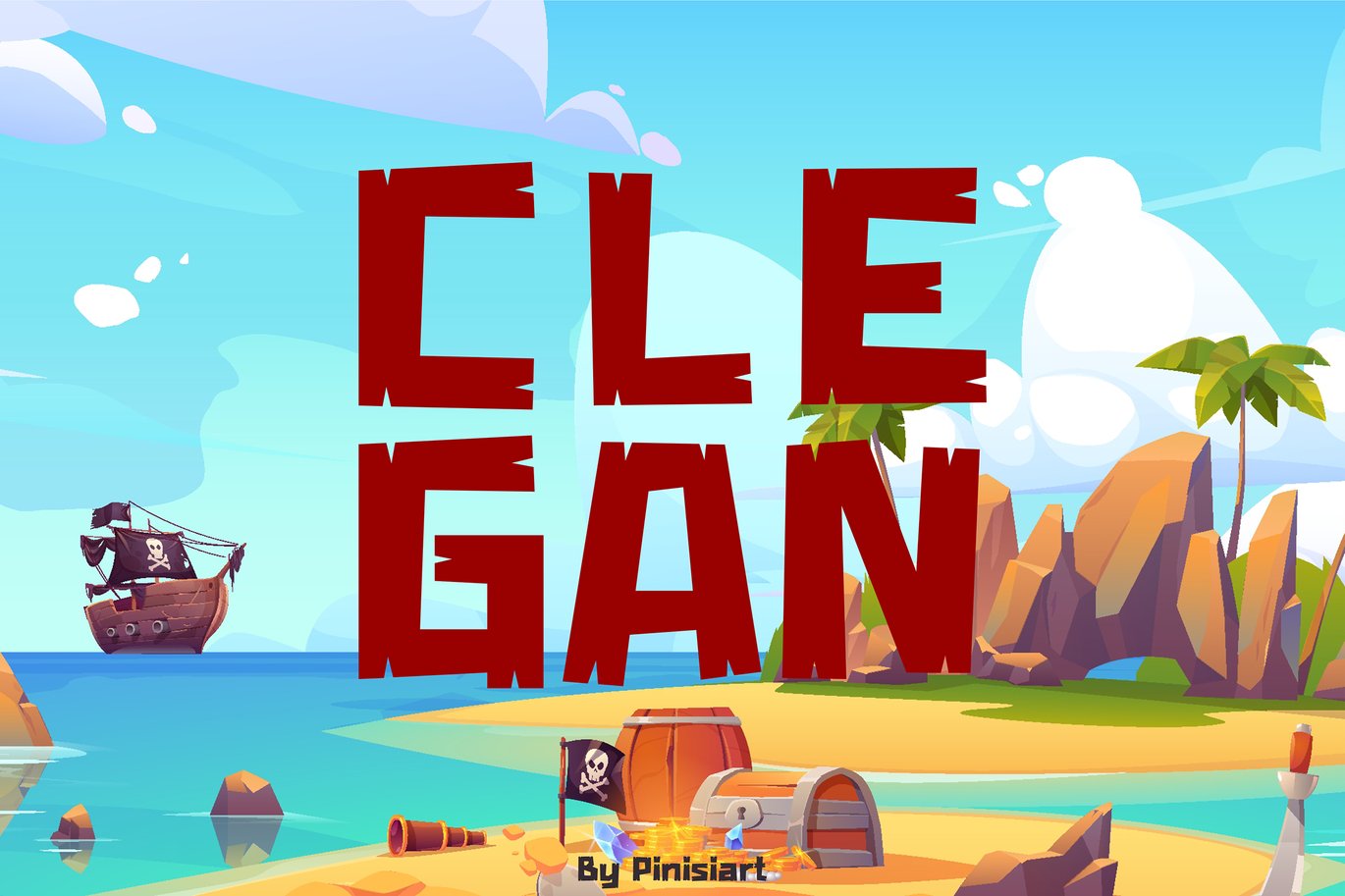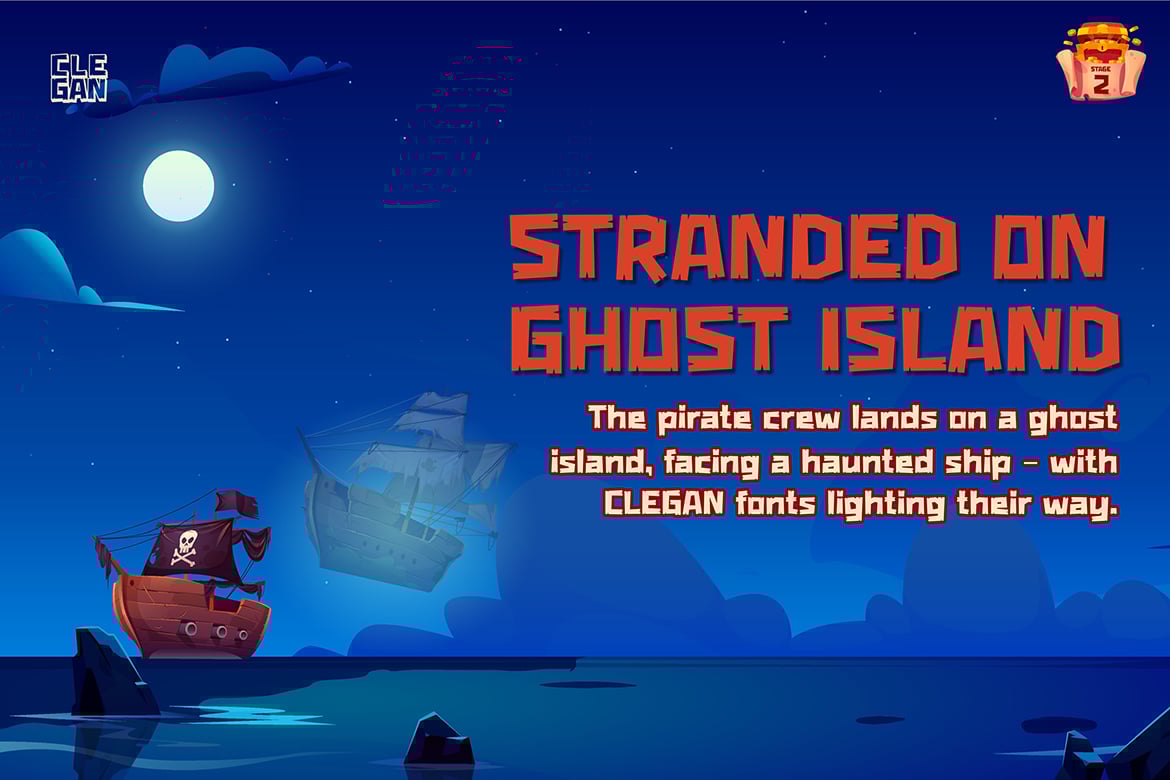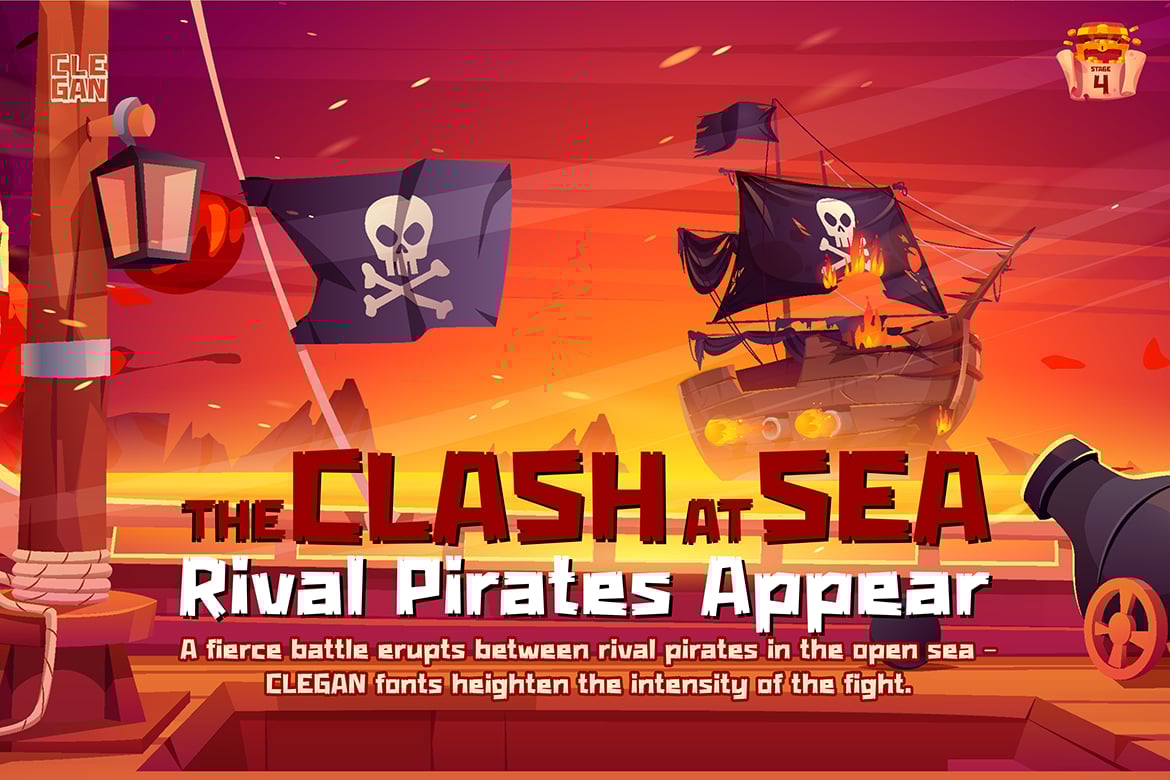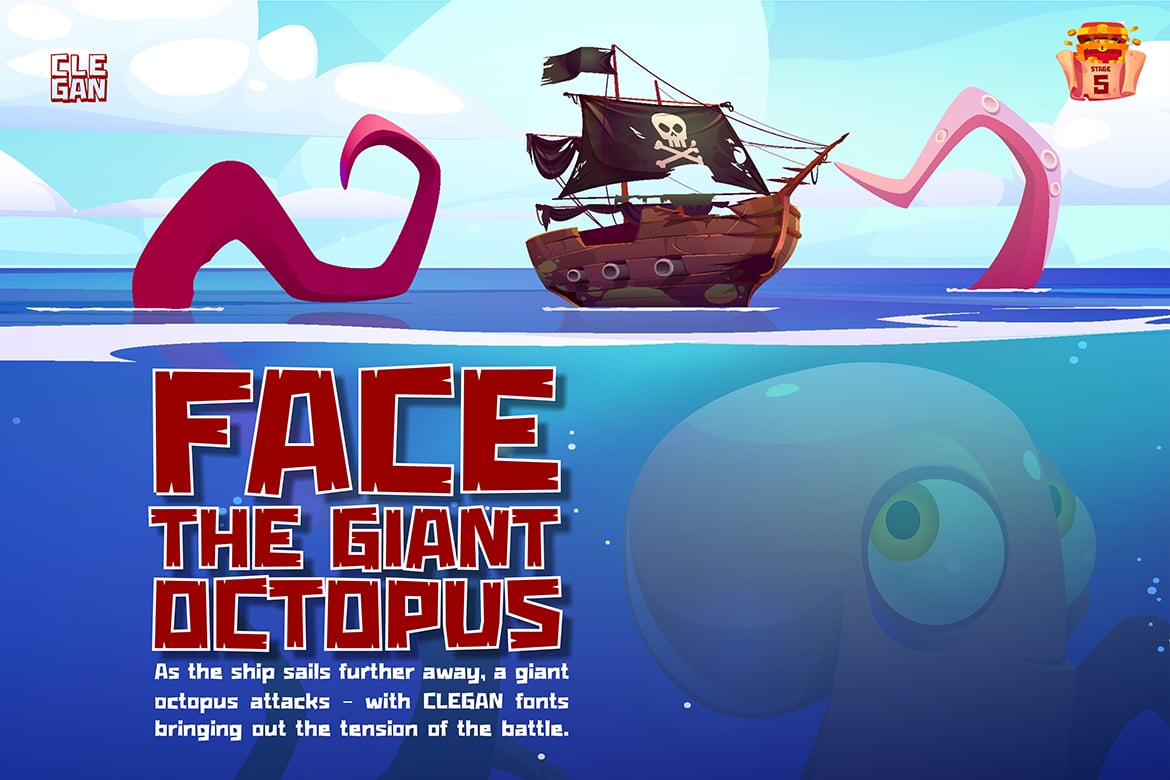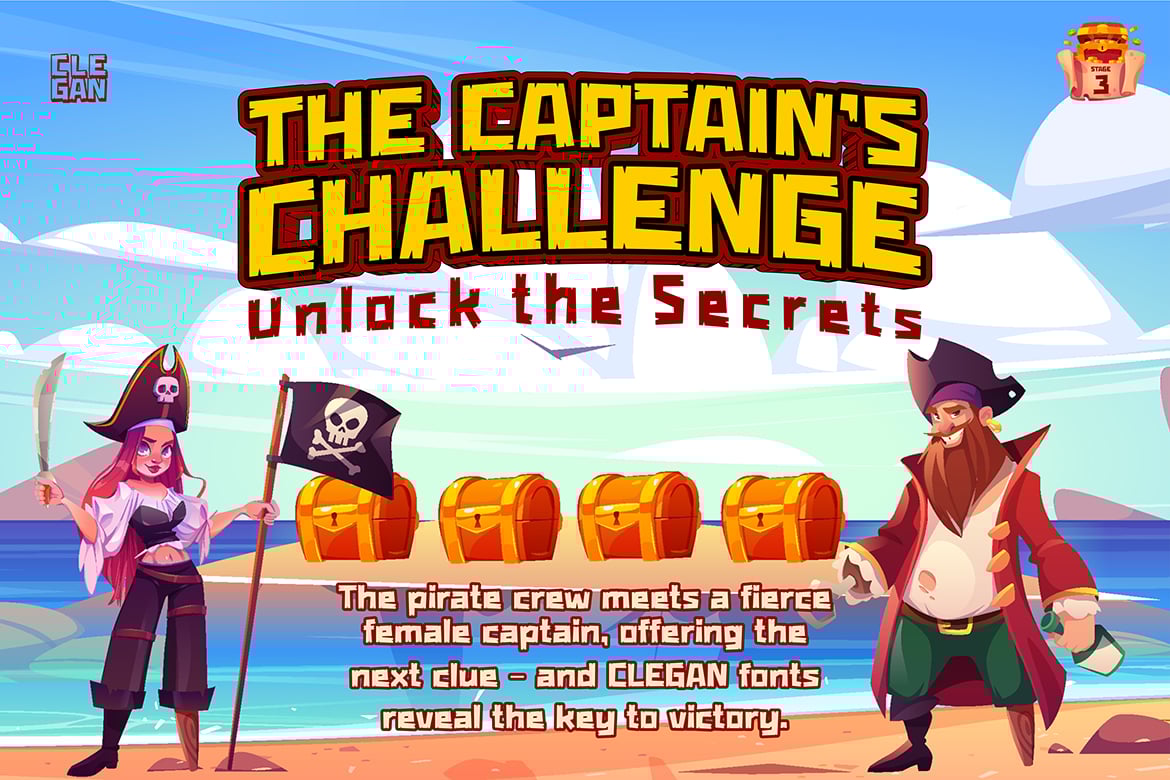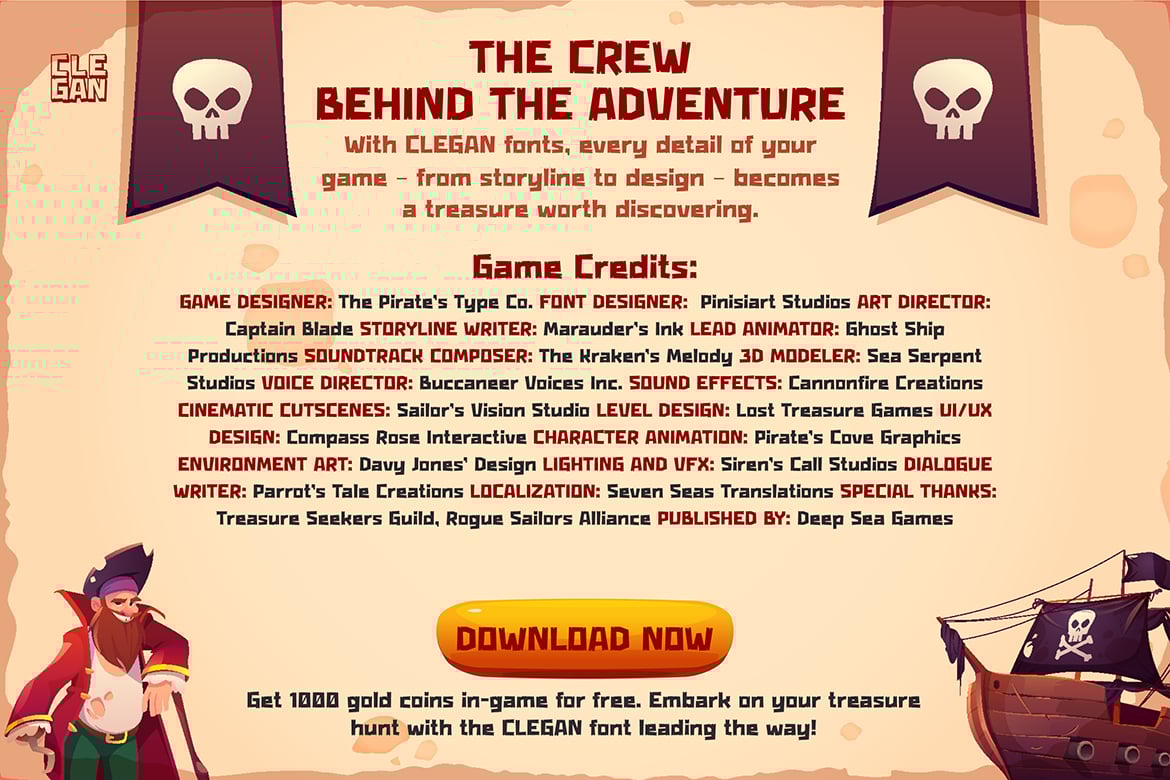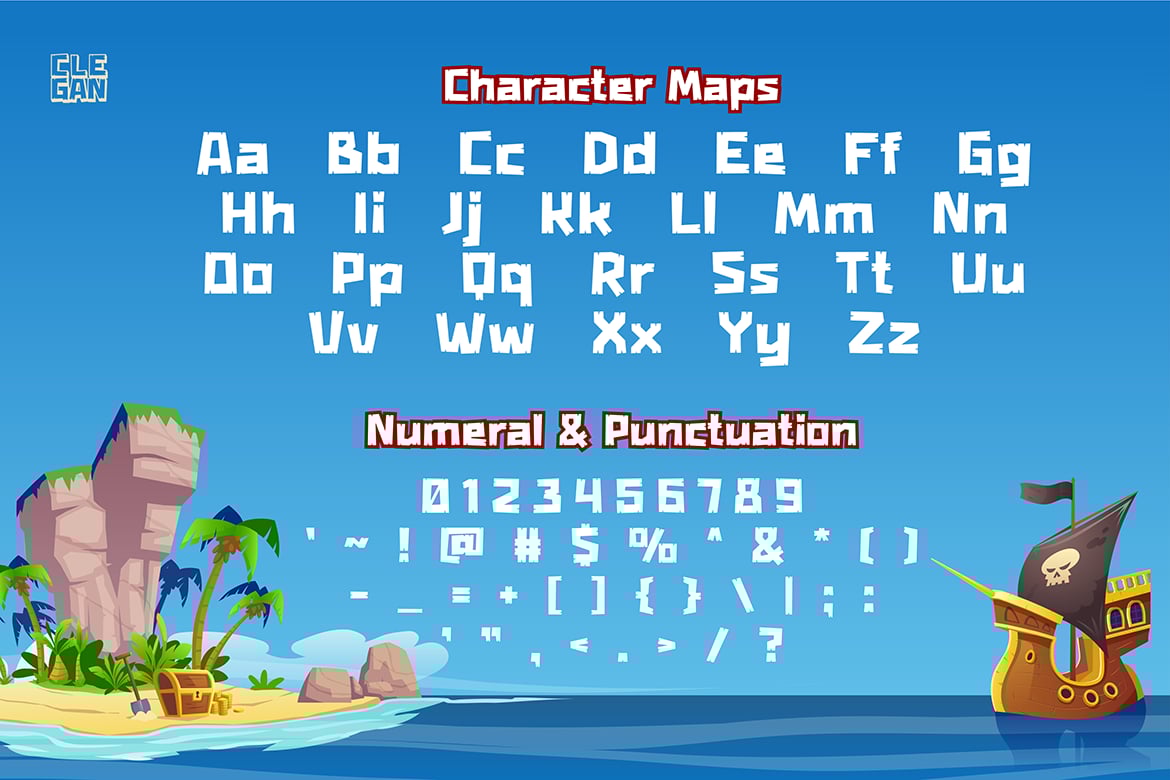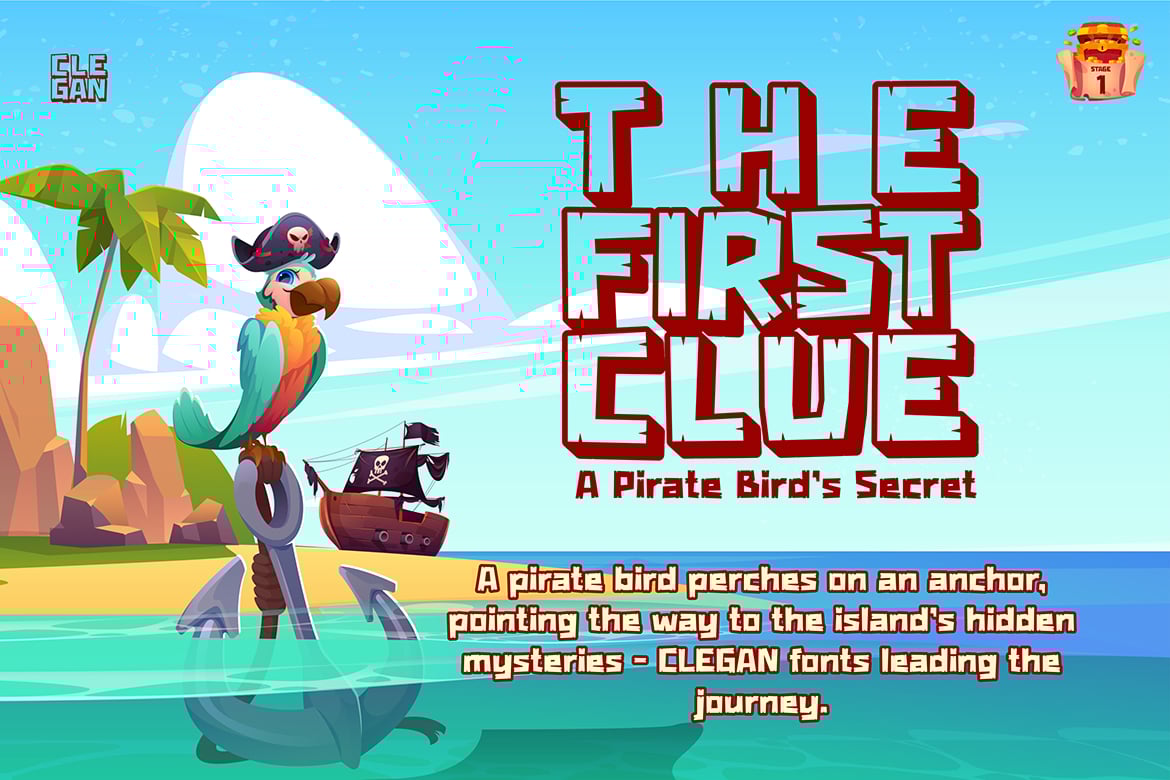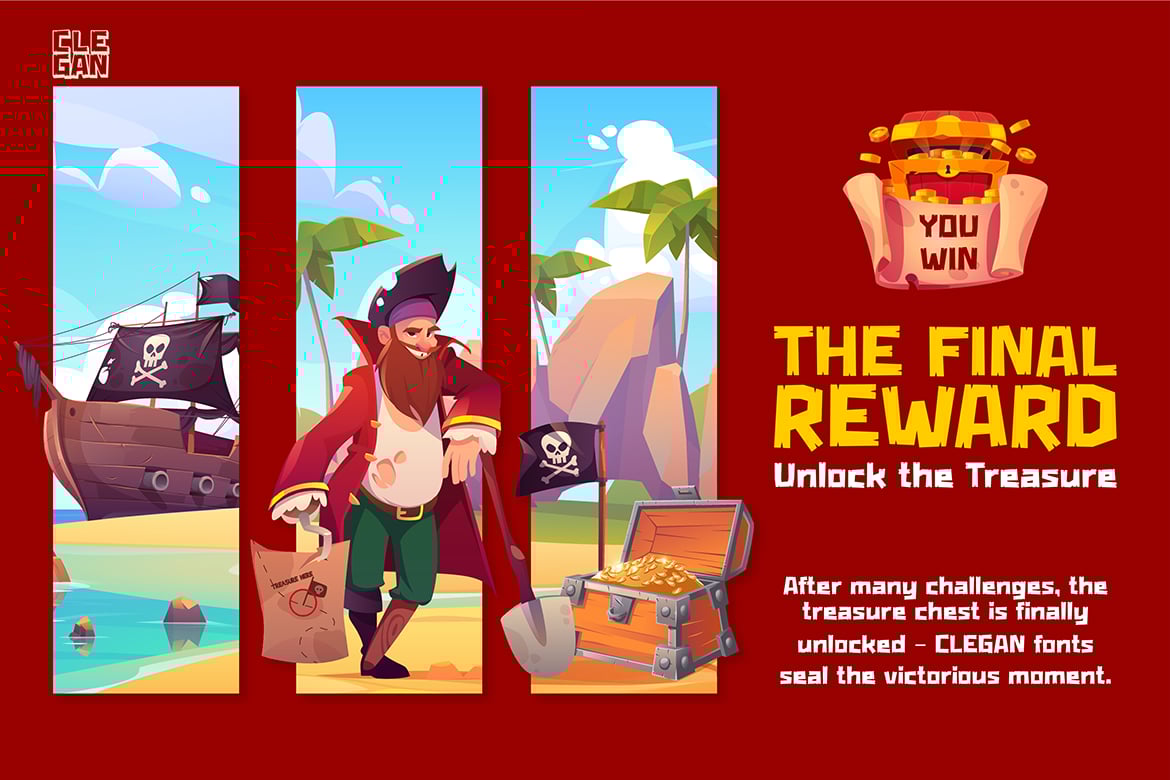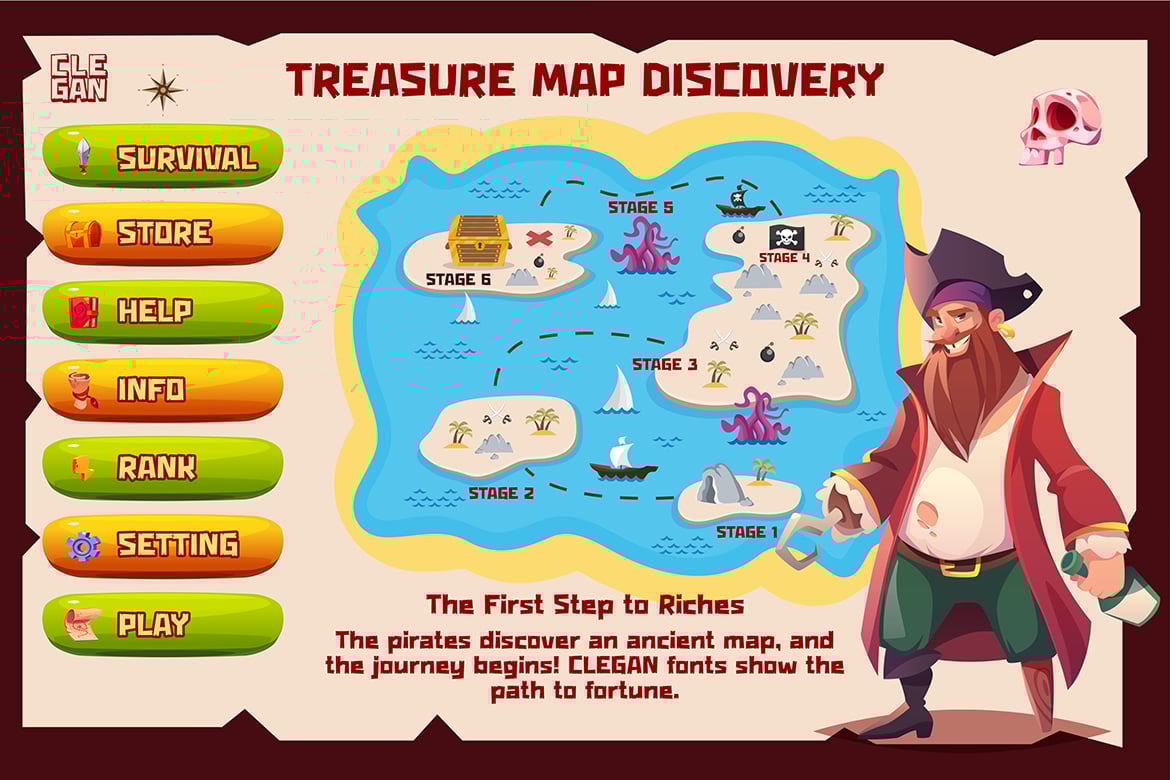
Gaming Font – Clegan
Clegan is a fun and adventurous display font that transports you to an underwater cartoon world. Its playful, child-friendly letterforms capture the excitement of underwater exploration while remaining bold and easy to read. Clegan’s whimsical design makes it perfect for projects that need a touch of adventure and fun, appealing to both children and adults alike.
Children’s Books & Storytelling Projects: Clegan is perfect for use in children’s books, especially those with ocean, sea creature, or adventure themes. Its playful and engaging style brings stories to life, making it ideal for young readers.
Video Games & Apps: This font works wonderfully for game interfaces, title screens, or in-game dialogues, especially for underwater-themed games aimed at kids. Its vibrant style adds excitement and an adventurous spirit to the gameplay.
Kids’ Brands & Products: Clegan’s bold, fun design is perfect for logos, packaging, and marketing materials for children’s toys, educational products, or sea-themed merchandise.
Event Posters & Marketing Campaigns: Use Clegan to promote adventure-themed kids’ events, such as aquatic-themed birthday parties, summer camps, or school activities. Its bubbly and playful style makes your marketing materials eye-catching and fun.
Educational Tools & Learning Games: Ideal for interactive learning tools or educational games focused on marine life or adventure. Clegan’s friendly letterforms make learning engaging and fun for children.